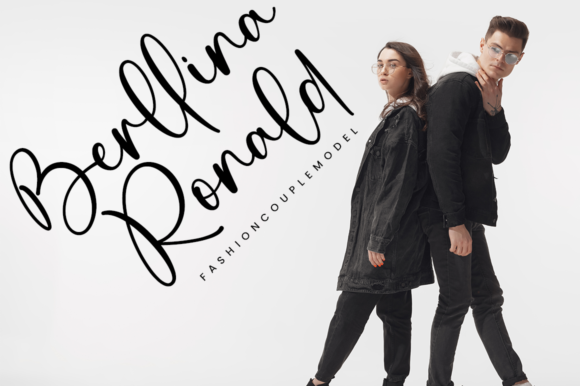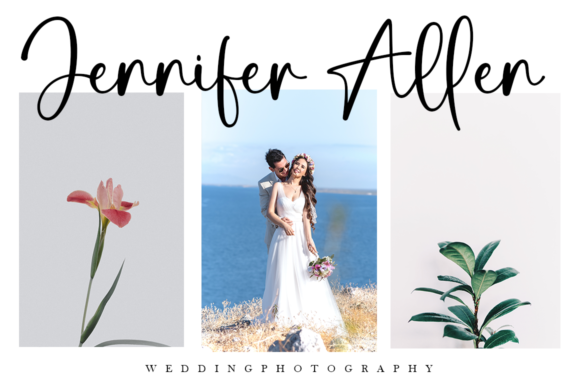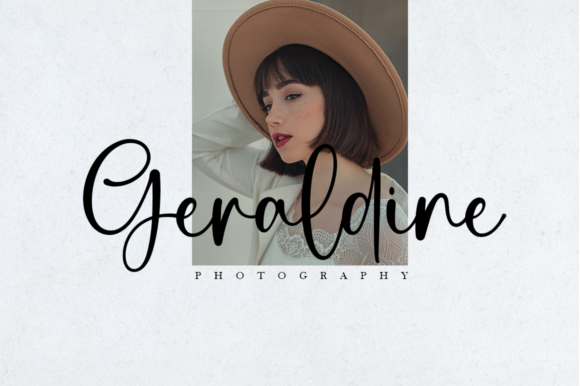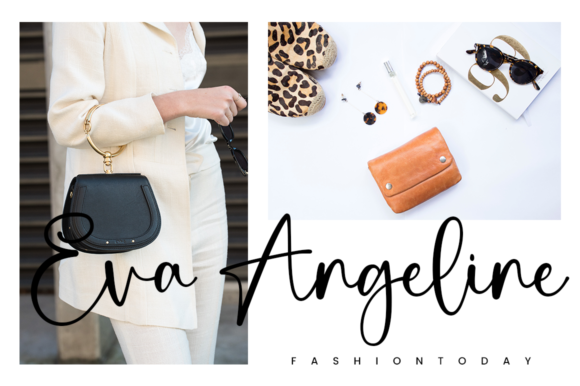
Melati is a lovely and delicate script font that exudes elegance and class. This font was particularly crafted for those who need a beautiful and refreshing look to their designs.
Melati Font